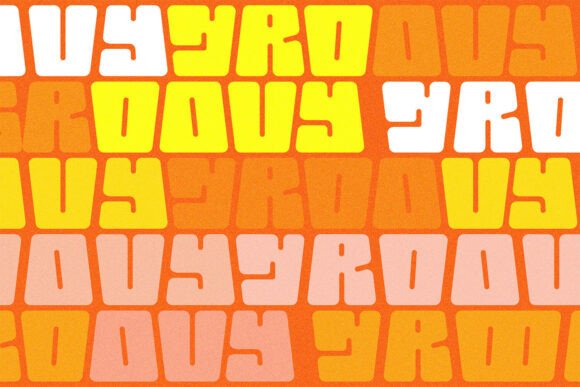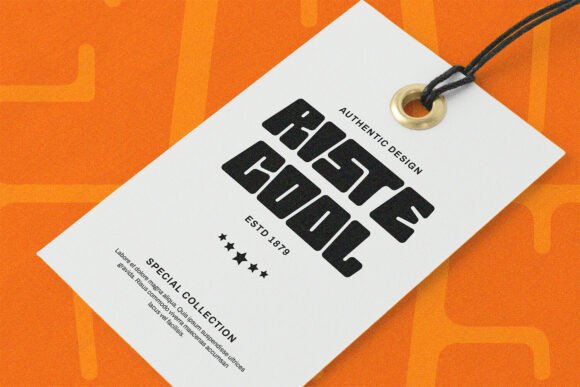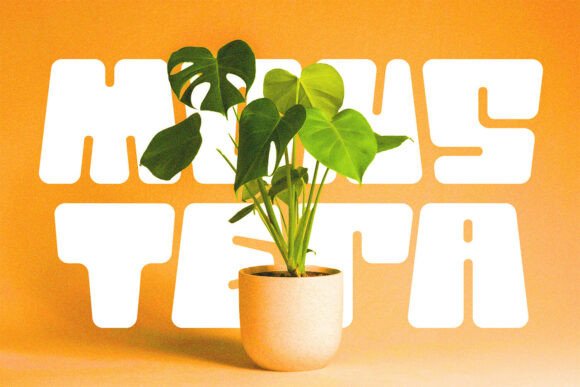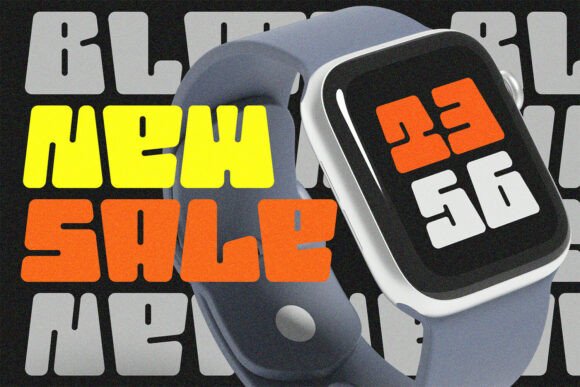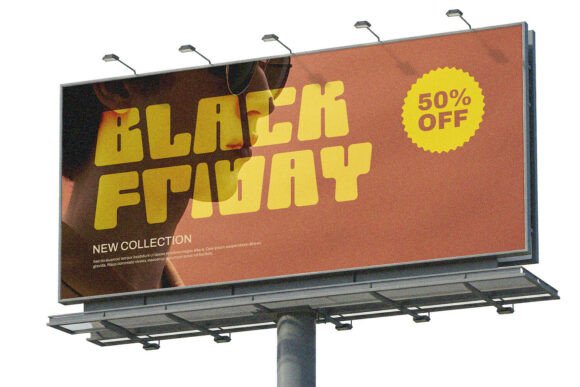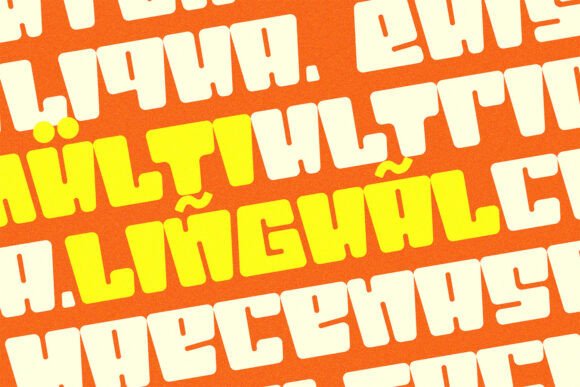
Introduction to Monicho Font
Have you ever been working on a creative project, pouring your heart and soul into it, only to feel like something’s missing – a spark that sets it off the charts? For designers, this moment is all too familiar. You’ve got the perfect concept, the perfect color palette, but it’s just not grabbing attention like you want it to. That’s where the Monicho Font comes in – a game-changing design resource that brings a breath of fresh air to your projects.
This bold, chunky display typeface is the perfect blend of retro charm and modern twist, making it a valuable asset for any designer looking to add some personality to their work. With its strong geometric shapes and playful vibe, the Monicho Font is sure to captivate your audience and leave a lasting impression.
- Monicho Font offers a unique blend of modern and classic design elements, making it perfect for a variety of creative projects.
Honest Review: Monicho Font
As a designer, I’m always on the lookout for high-quality design resources to elevate my creative projects. Recently, I stumbled upon the Monicho Font, and I’m excited to share my honest review.
- Beautifully crafted letterforms with a unique, modern aesthetic
- Excellent for use in digital design, such as website headers and social media graphics
Overall, I’m impressed with the Monicho Font. While it has some limitations, its unique design and high-quality letterforms make it an excellent addition to any designer’s toolkit. With its free download option, it’s definitely worth checking out for your next creative project.
To get the most out of the Monicho Font, use it in combination with other design elements, such as images or shapes. This will help create a visually appealing design that showcases the font’s unique characteristics.